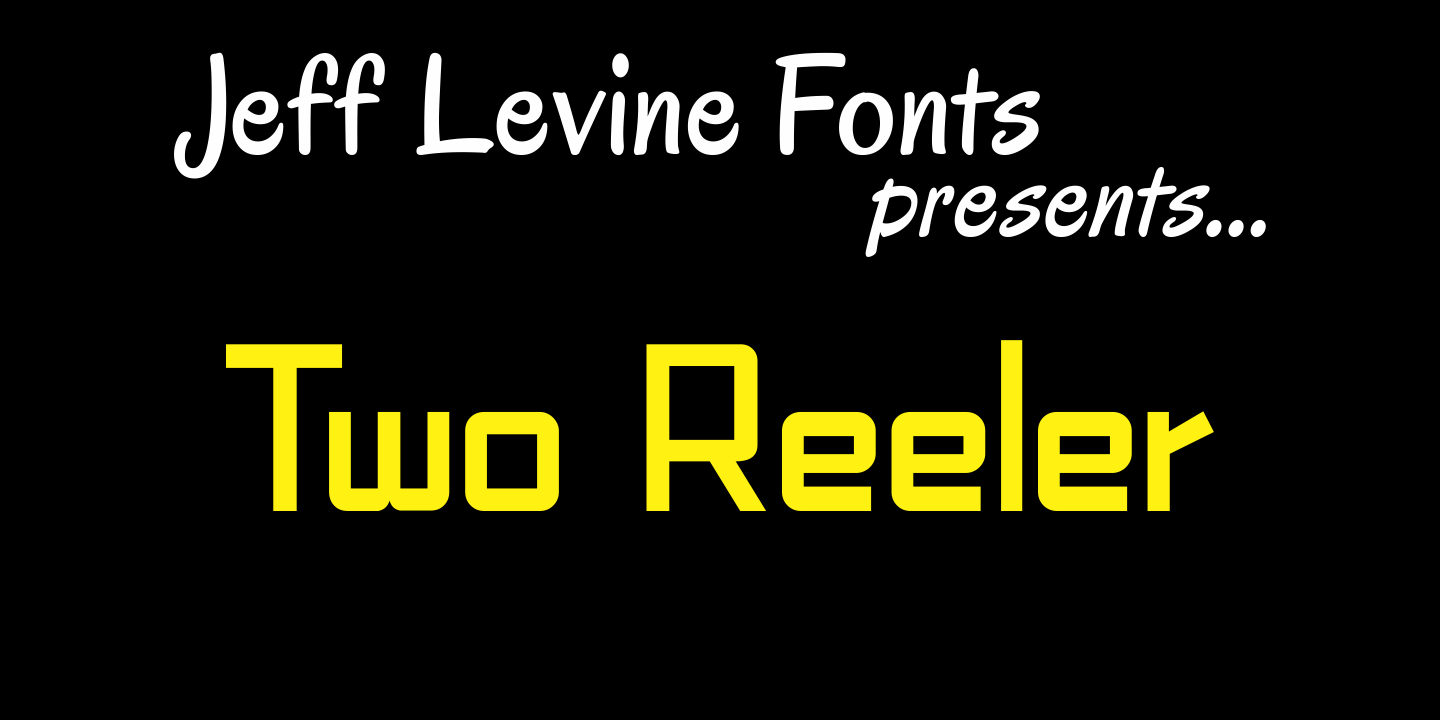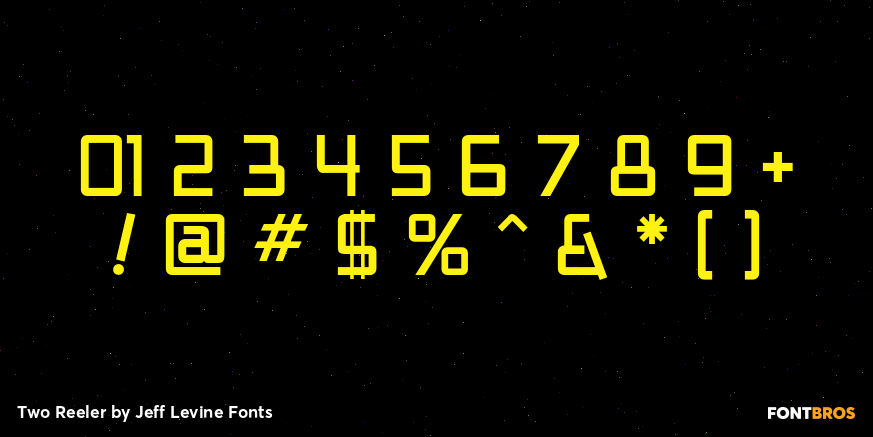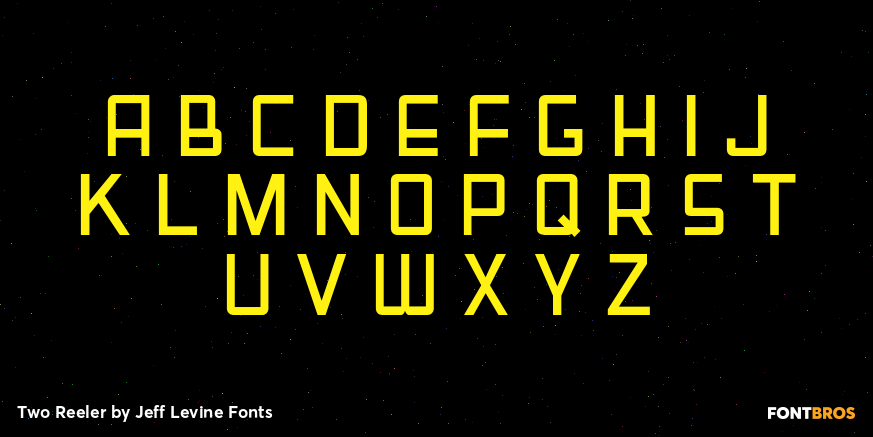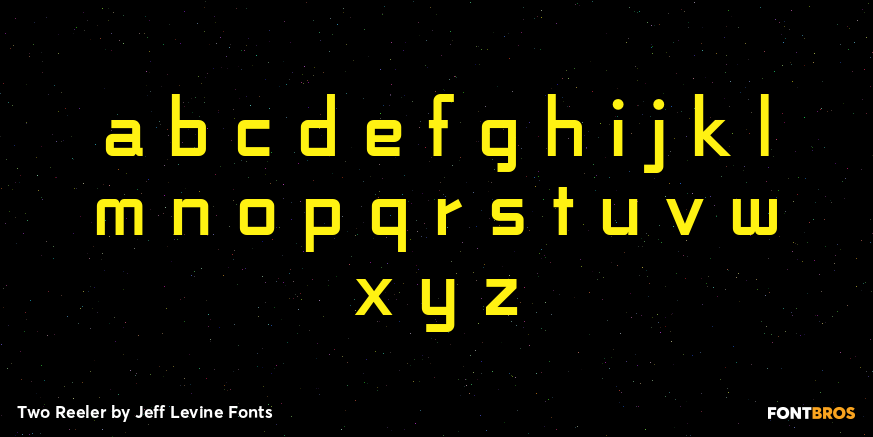
Two Reeler
While watching a 1920s Charlie Chaplin short film, Jeff Levine was taken with the unusually modern looking lettering of the title cards in that silent movie. The lettering was not only right for its time, but could also be adapted to both Art Deco and Techno applications.
From this classic film comes the font Two Reeler JNL, a bit of yesterday with an eye toward the future.